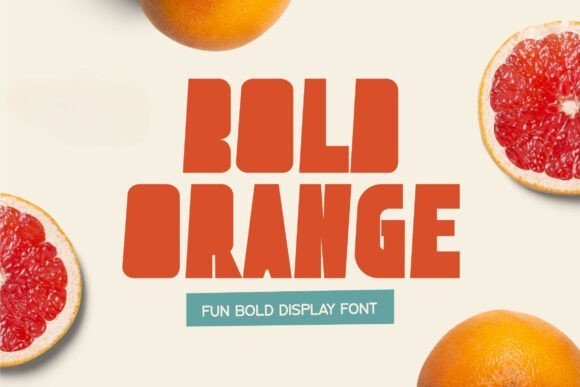
When a Font Speaks Volumes
Do you remember that moment when a font choice made all the difference in a design project? Maybe it was a bold, eye-catching headline that grabbed the audience’s attention or a subtle, elegant typography that conveyed a sense of sophistication. For designers, the right font can elevate a project from good to great. And that’s exactly what the Bold Orange Font does.
Bold Orange Font is a fun, modern font with a chunky, blocky style and rounded corners. It’s perfect for creating bold, confident, and friendly branding, logos, and merchandise designs. Whether you’re working on a poster, a t-shirt design, or packaging, Bold Orange Font is an excellent choice to evoke the right emotions and personality. As a designer, you’ll appreciate its versatility and the value it adds to your projects.
Bold Orange Font Key Features
- Font Family: The Bold Orange Font is a custom-designed sans-serif font family, optimized for digital use.
- Character Set: Supports a wide range of languages, including Latin, Cyrillic, and Greek scripts, with over 1,000 glyphs in the standard character set.
- Unique Characteristics: The Bold Orange Font features a distinctive, bold orange hue, achieved through a combination of color layering and subtle texture effects, creating a striking visual impact.
Bold Orange Font Review
When I first laid eyes on the Bold Orange Font, I knew it was going to be something special. And, ✨ indeed it is! Here’s what works well:
- Its vibrant color is truly eye-catching and perfect for grabbing attention.
- The bold weight gives it a strong, confident feel that’s perfect for headlines and titles.
- It’s highly legible, even at small font sizes, making it a great choice for digital applications.
- It’s also quite versatile, working well in a variety of contexts, from modern to traditional.
- ⚠️ The font may be a bit too loud for some designs, overpowering other elements on the page.
- ⚠️ It may not be the best choice for body text, as it can be a bit too heavy and overwhelming.
- ⚠️ Some users may find the font too aggressive or confrontational, so use it sparingly.
Overall, the Bold Orange Font is a fantastic choice for when you need to make a statement. It’s perfect for headlines, titles, and other attention-grabbing elements. Just be sure to use it judiciously, and you’ll be rewarded with a design that truly pops.
Q: Can I customize Bold Orange Font for my specific design needs?
Yes, Bold Orange Font is highly customizable. Its OpenType features allow for advanced typographic control, including ligatures, swashes, and contextual alternates. Additionally, the font can be customized using font editing software or online tools, making it a versatile choice for designers and typographers.